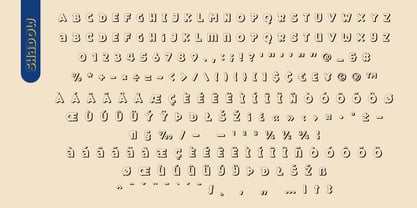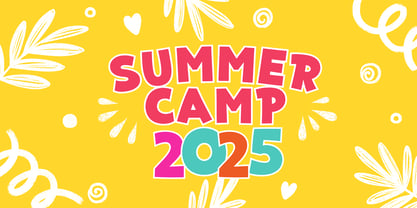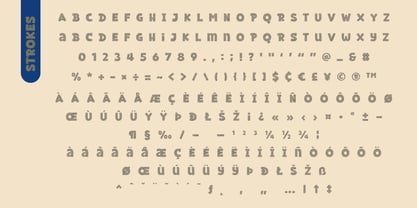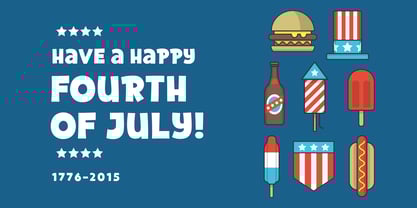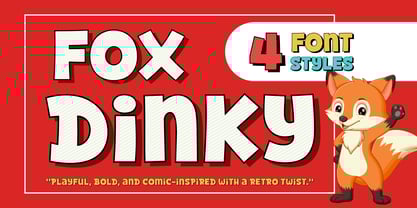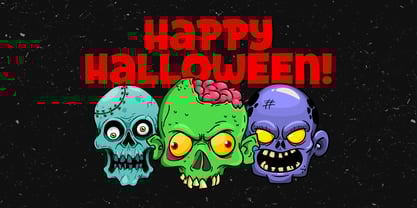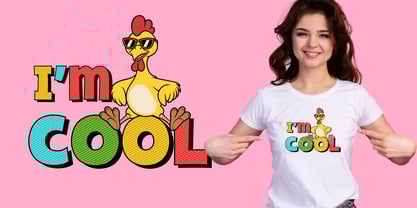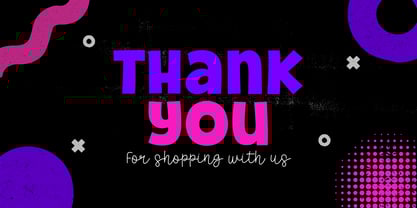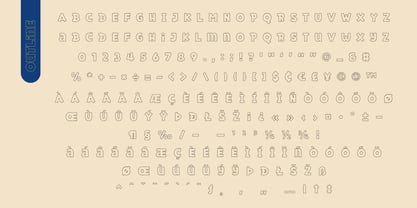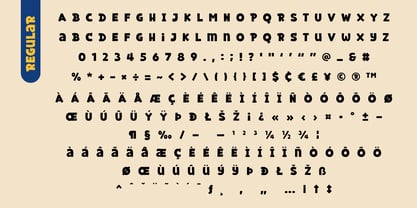
Fox Dinky
by Fox7
The Fox Dinky Font Family was designed by Rattana Rattanawan and published by Fox7. Fox Dinky contains 4 styles and family package options.
Fox Dinky is a fun and chunky cartoon font family with 4 playful styles—Regular, Strokes, Outline, and Shadow. Inspired by vintage comics and retro pop art, it's perfect for kids’ products, playful branding, comic-style posters, packaging, book covers, and DIY crafts. Whether you're a designer, crafter, or content creator, Fox Dinky adds a bold, joyful touch to any project.
Designers: Rattana Rattanawan
Publisher: Fox7
Foundry: Fox7
Design Owner: Fox7